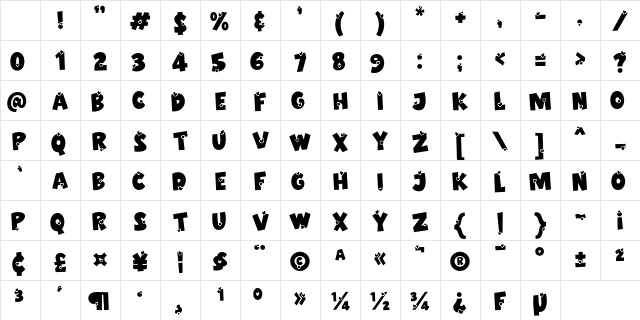
Complete Valentine Wildflower Sans Demo Regular glyph index. Displaying only characters natively supported by Valentine Wildflower Sans Demo Regular font.
Valentine Wildflower Sans Demo is a composed and adaptable typeface that performs quietly and consistently across a wide range of design contexts.